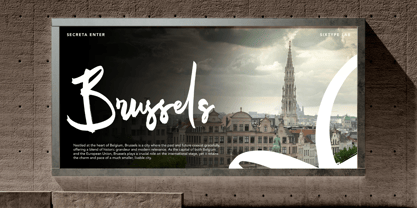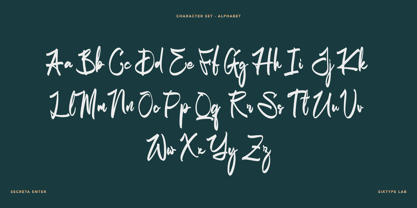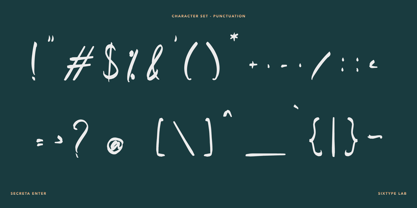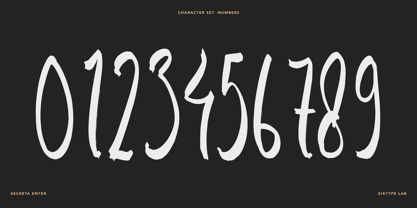
Secreta Enter
by Sixtype Foundry
The Secreta Enter Font Family was designed by Ilham Aji Saputro and published by Sixtype Foundry. Secreta Enter contains 1 styles.
Unlock the charm of elegance and subtle mystery with Secreta Enter, a handwritten script font crafted with heart and intention. Featuring fluid strokes, artistic swashes, and expressive letterforms, this font adds a personal, whimsical touch to every design it graces—perfect for branding, packaging, wedding invites, social media posts, and more.
Carefully made to balance beauty and spontaneity, Secreta Enter blends the softness of human handwriting with a stylish modern edge. Each character dances with its own personality—crafted by hand, inspired by curiosity, and designed to captivate.